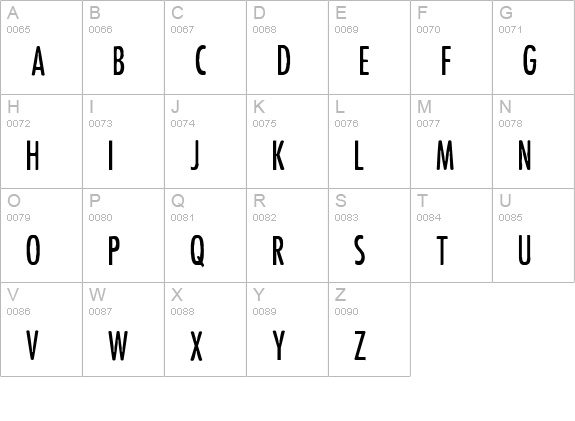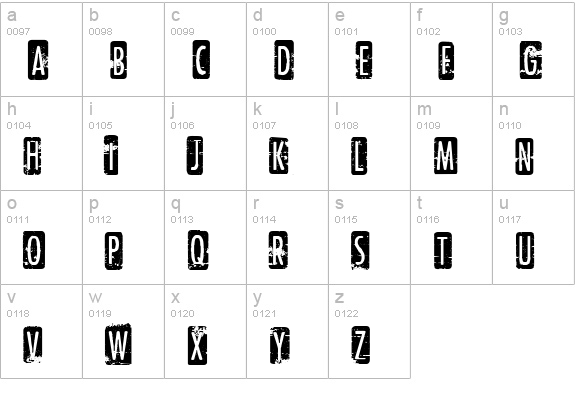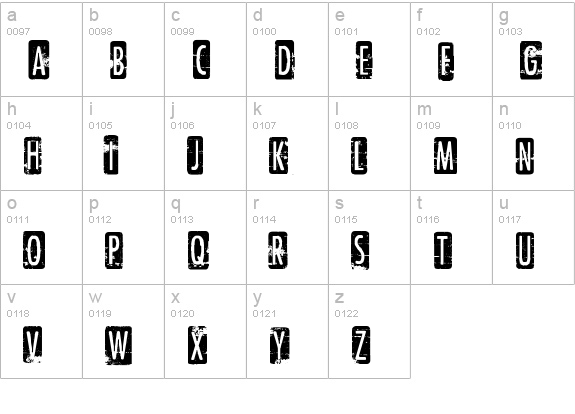
PunkRockShow Regular is the standard, neutral variant in the PunkRockShow typeface family \xE2\x80\x94 well suited to general body text, paragraphs, and standard typographic work.
Introducing PunkRockShow Regular font, a rebellious and energetic typeface that captures the essence of the punk rock movement. With its bold and edgy letterforms, this font is perfect for expressing your individuality and making a statement. Designed with a unique blend of grunge and street art influences, PunkRockShow Regular font exudes raw power and attitude. But the best part? It's absolutely free! That's right, you can freely download PunkRockShow Regular font at FontsMarket.com. Whether you're a graphic designer looking to add some punk flair to your projects or a music lover wanting to create eye-catching posters for your favorite bands, this font is the ultimate tool for unleashing your creativity. PunkRockShow Regular font is versatile and can be used for a variety of purposes. From album covers and gig posters to t-shirts and flyers, it will instantly grab attention and give your designs an authentic punk rock vibe. Its carefully crafted letterforms maintain legibility while still retaining a gritty and rebellious aesthetic. So why wait? Download PunkRockShow Regular font today and let your designs rock the world. Remember, it's free and available exclusively at FontsMarket.com. Unleash your inner punk and make your designs stand out from the crowd with this one-of-a-kind font.